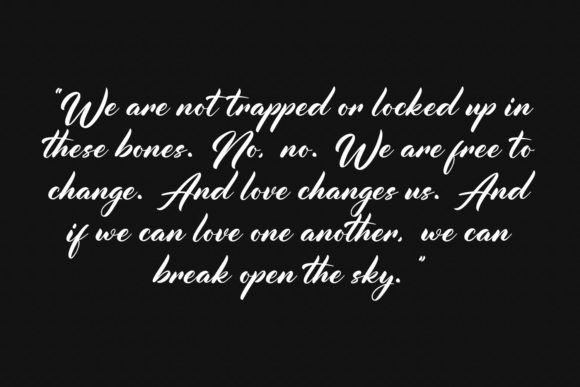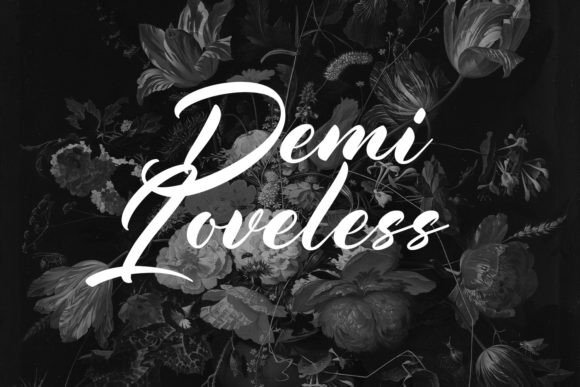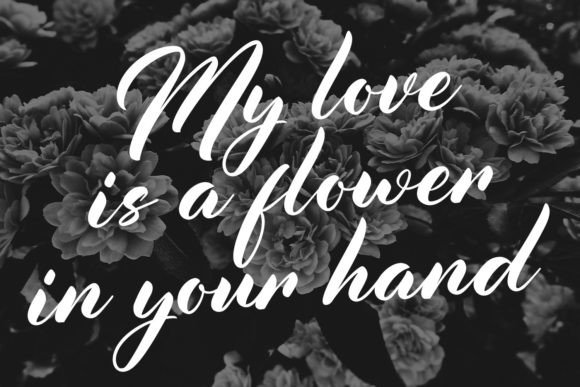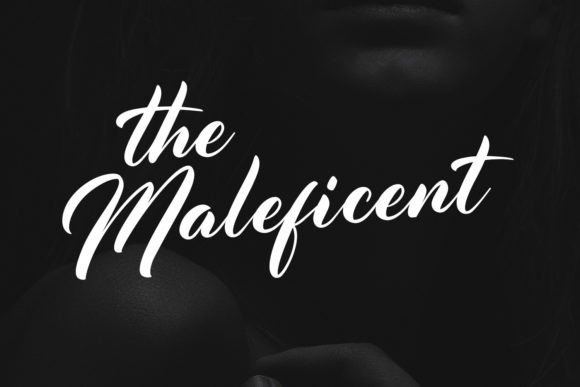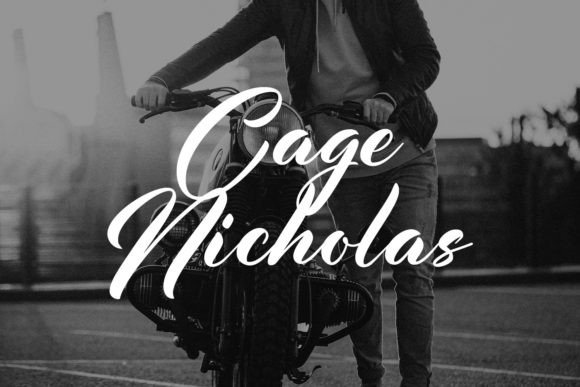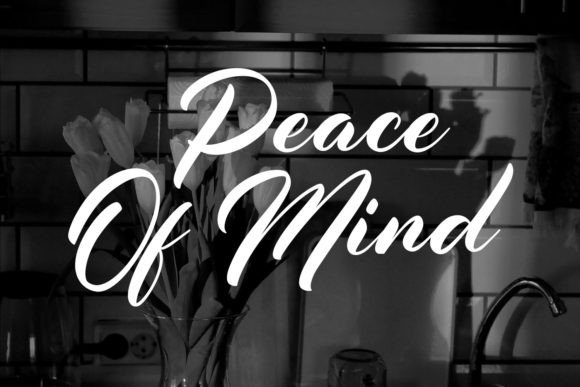
Discover the Elegance of Gray Hopes Font: Elevate Your Designs with this Modern Handwritten Script
In the world of typography, fonts play a crucial role in conveying the tone and personality of a design. For designers and crafters, finding the perfect font can be a daunting task. However, if you’re looking for a modern and neat handwritten script font that can elevate your creations, look no further than Gray Hopes Font. In this article, we’ll explore the features and benefits of Gray Hopes Font, and why it’s an incredible asset to your font library.
What is Gray Hopes Font?
Gray Hopes Font is a modern and neat handwritten script font that exudes elegance and sophistication. Its clean lines, subtle curves, and balanced proportions make it perfect for a wide range of design applications, from branding and advertising to packaging and digital media. Whether you’re creating a logo, heading, or body text, Gray Hopes Font is sure to make a lasting impression.
Key Features of Gray Hopes Font
- Modern and Neat Design: Gray Hopes Font boasts a modern and neat design that’s perfect for creating clean and sophisticated designs.
- Handwritten Script: The font’s handwritten script style adds a touch of personality and elegance to your designs.
- Versatile: Gray Hopes Font is versatile and can be used for a wide range of design applications, including branding, advertising, packaging, and digital media.
- Easy to Read: The font’s clear and balanced proportions make it easy to read, even at small sizes.
Benefits of Using Gray Hopes Font
So, why should you choose Gray Hopes Font for your design projects? Here are just a few benefits of using this incredible font:
- Elevate Your Designs: Gray Hopes Font has the potential to elevate any creation, adding a touch of sophistication and elegance to your designs.
- Stand Out from the Crowd: With its unique and modern design, Gray Hopes Font can help your designs stand out from the crowd and grab attention.
- Save Time: The font’s versatility and ease of use can save you time and effort in your design projects.
- Professional Results: Gray Hopes Font is perfect for creating professional-looking designs that are sure to impress.
Who Can Benefit from Gray Hopes Font?
Gray Hopes Font is perfect for a wide range of designers and crafters, including:
- Graphic Designers: Gray Hopes Font is perfect for graphic designers who need a modern and elegant font for their design projects.
- Branding and Advertising Agencies: The font’s versatility and sophistication make it perfect for branding and advertising agencies.
- Packaging Designers: Gray Hopes Font is perfect for packaging designers who need a clean and elegant font for their designs.
- Digital Media Designers: The font’s clear and balanced proportions make it perfect for digital media designers who need a font that’s easy to read on screen.
In conclusion, Gray Hopes Font is a modern and neat handwritten script font that’s perfect for designers and crafters who need a sophisticated and elegant font for their design projects. With its versatile design, ease of use, and professional results, Gray Hopes Font is an incredible asset to your font library. Whether you’re creating a logo, heading, or body text, Gray Hopes Font is sure to elevate your designs and help you stand out from the crowd.